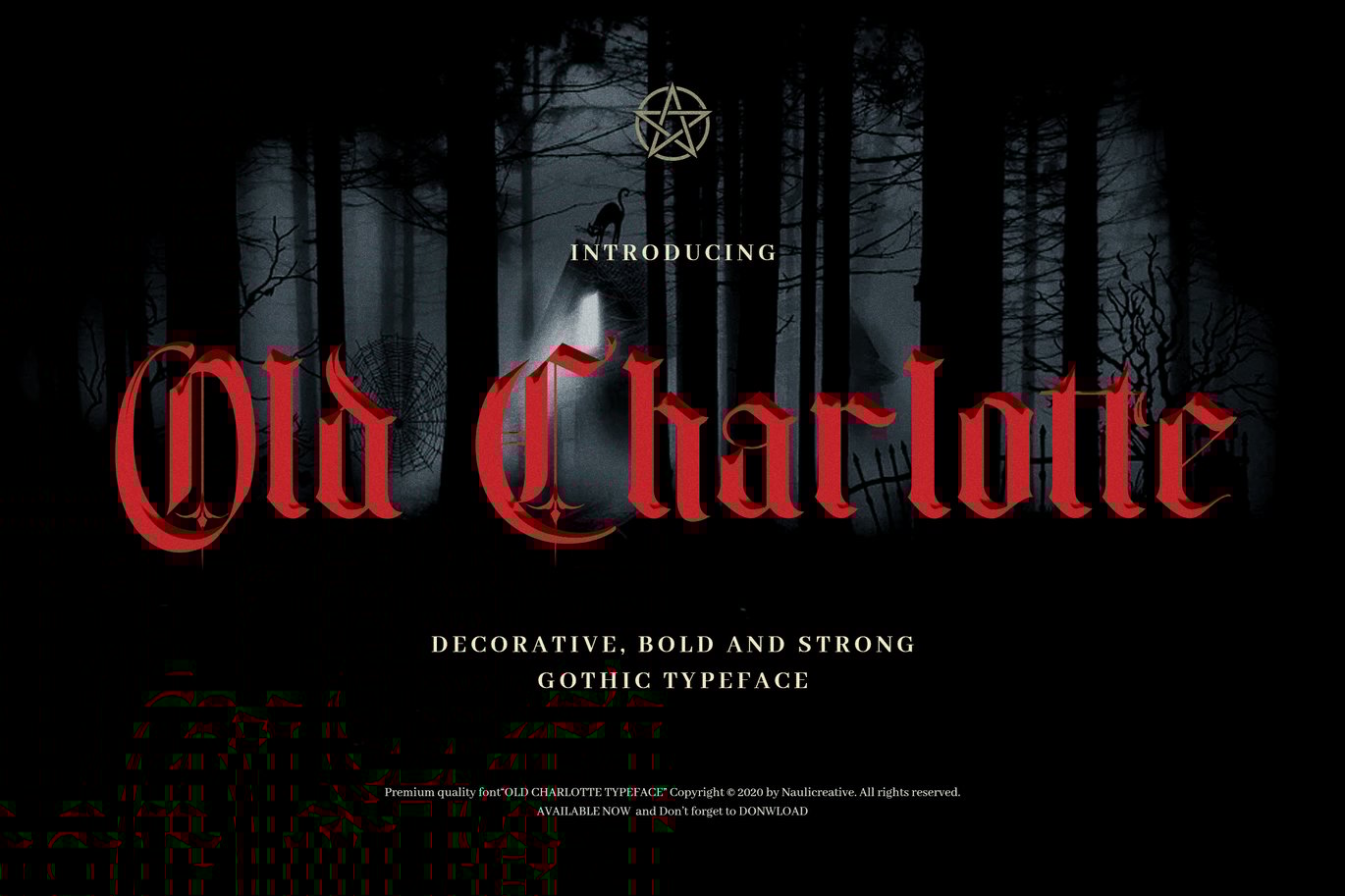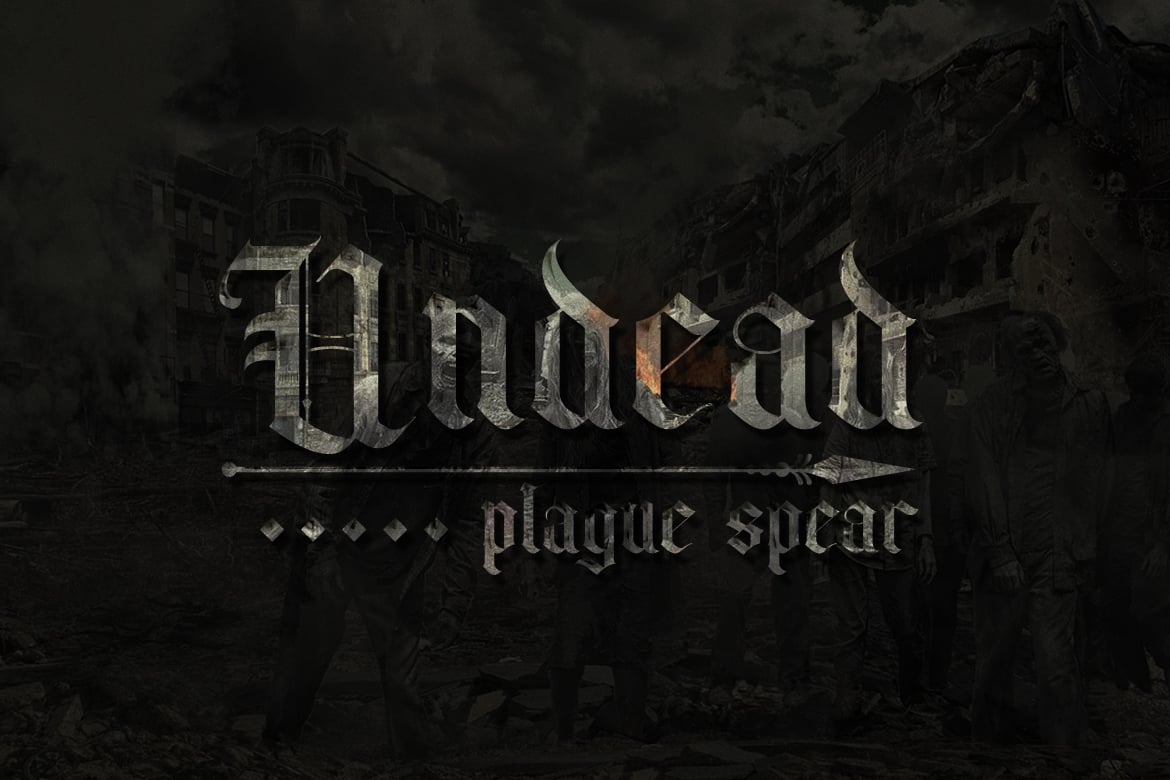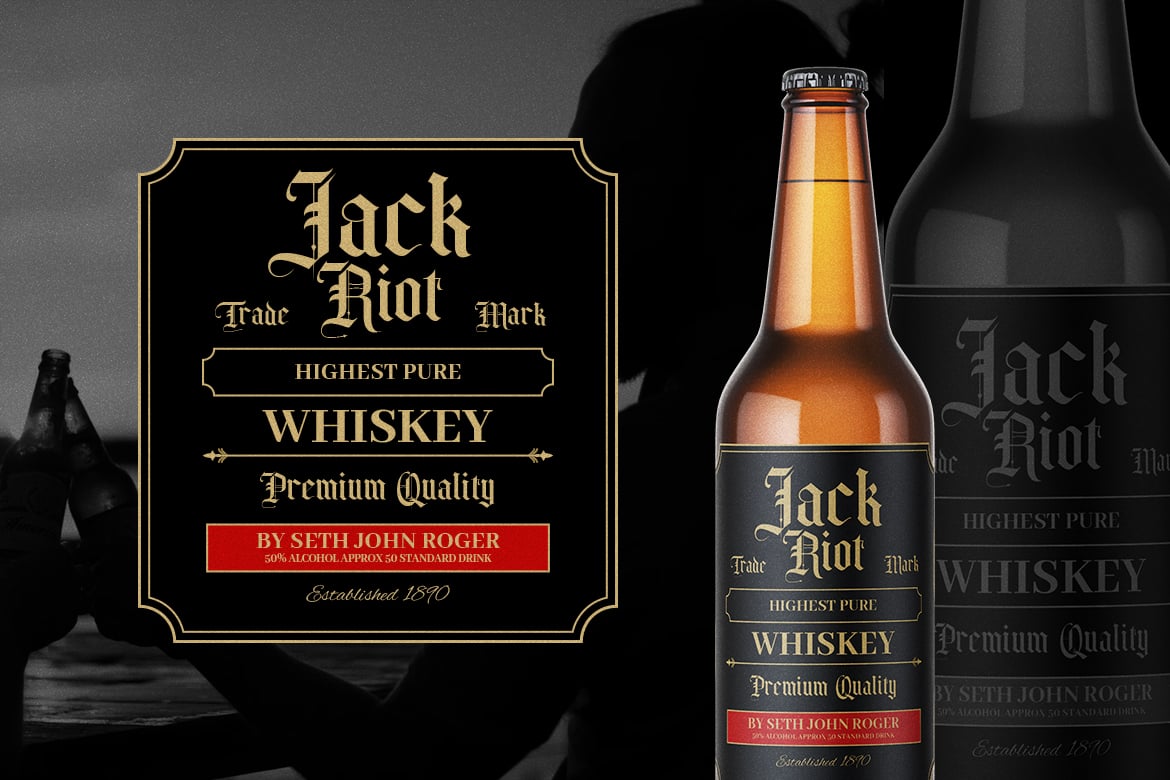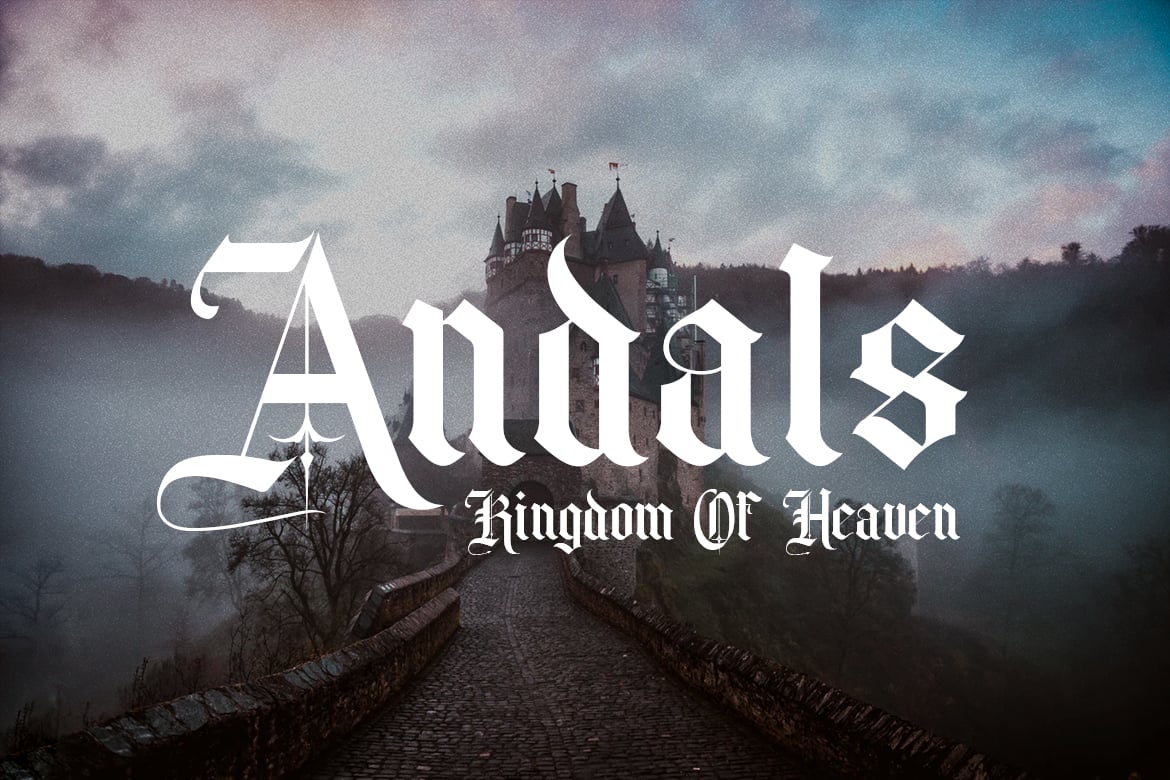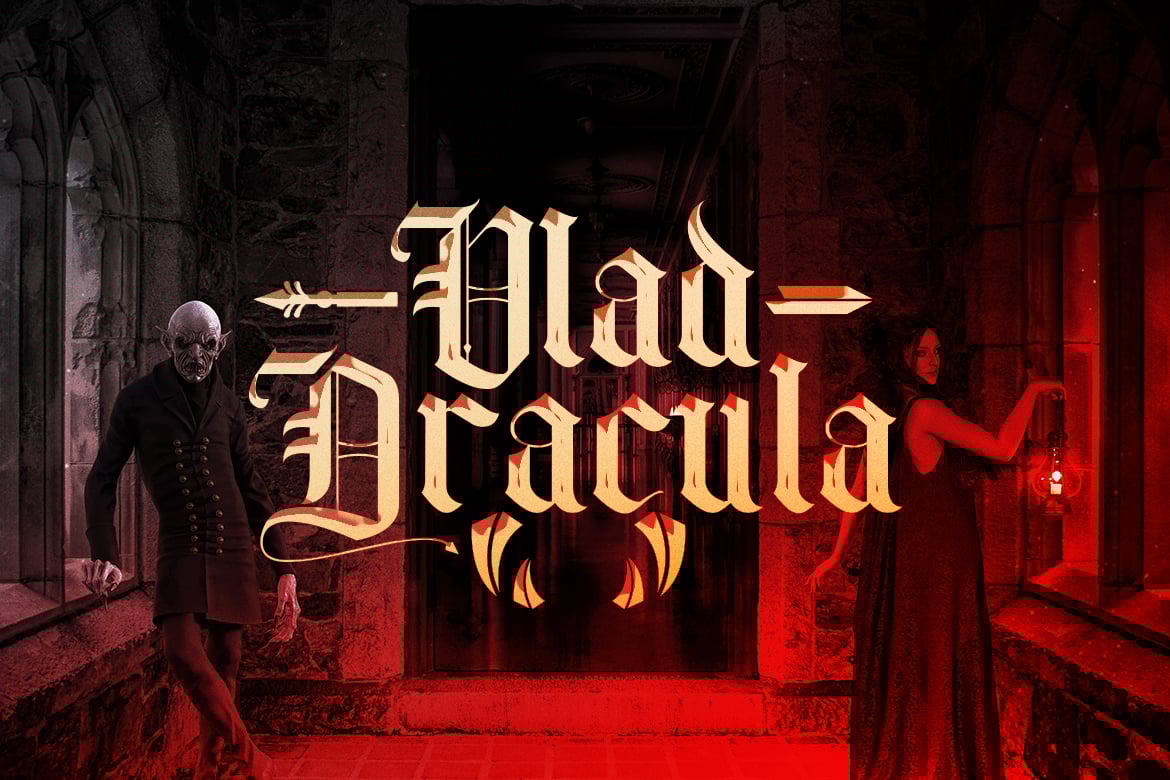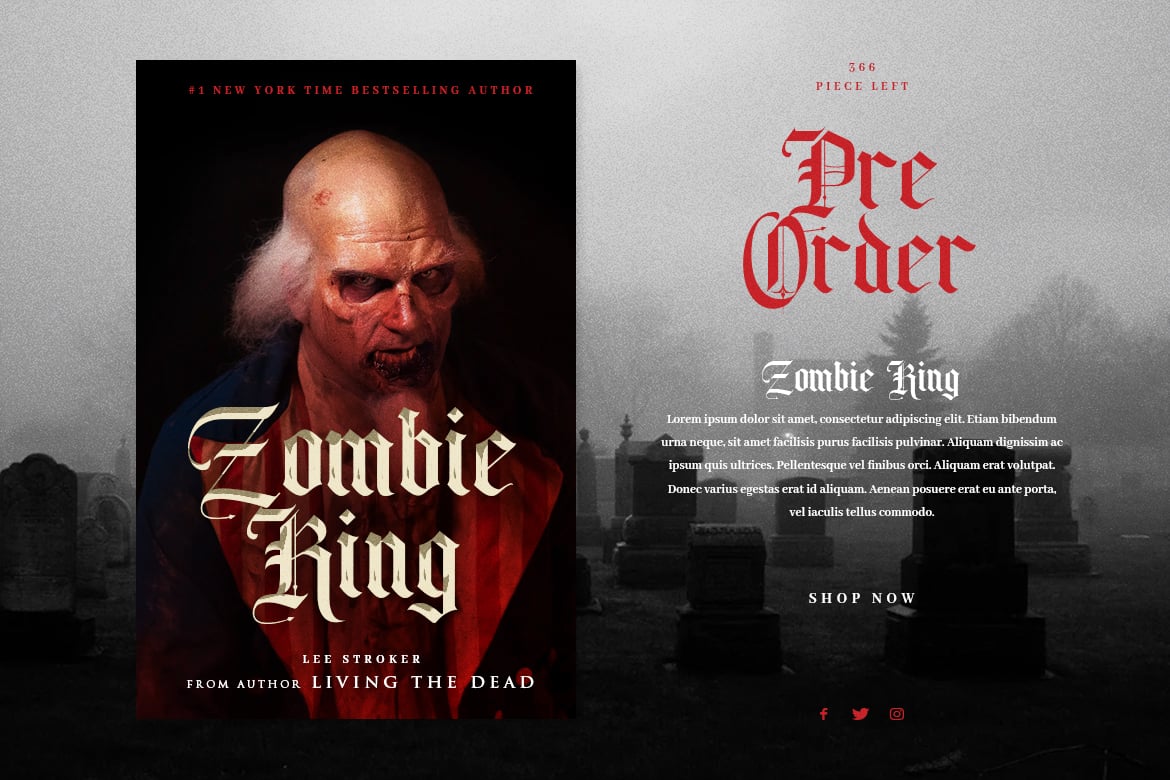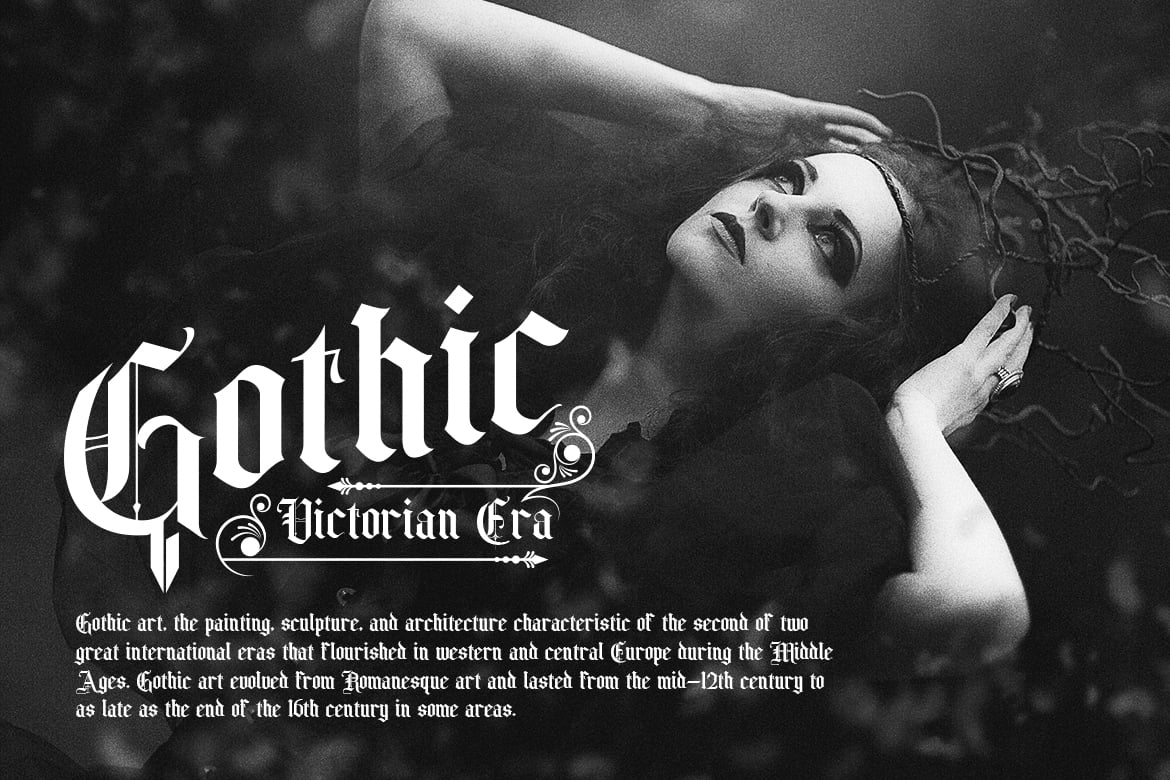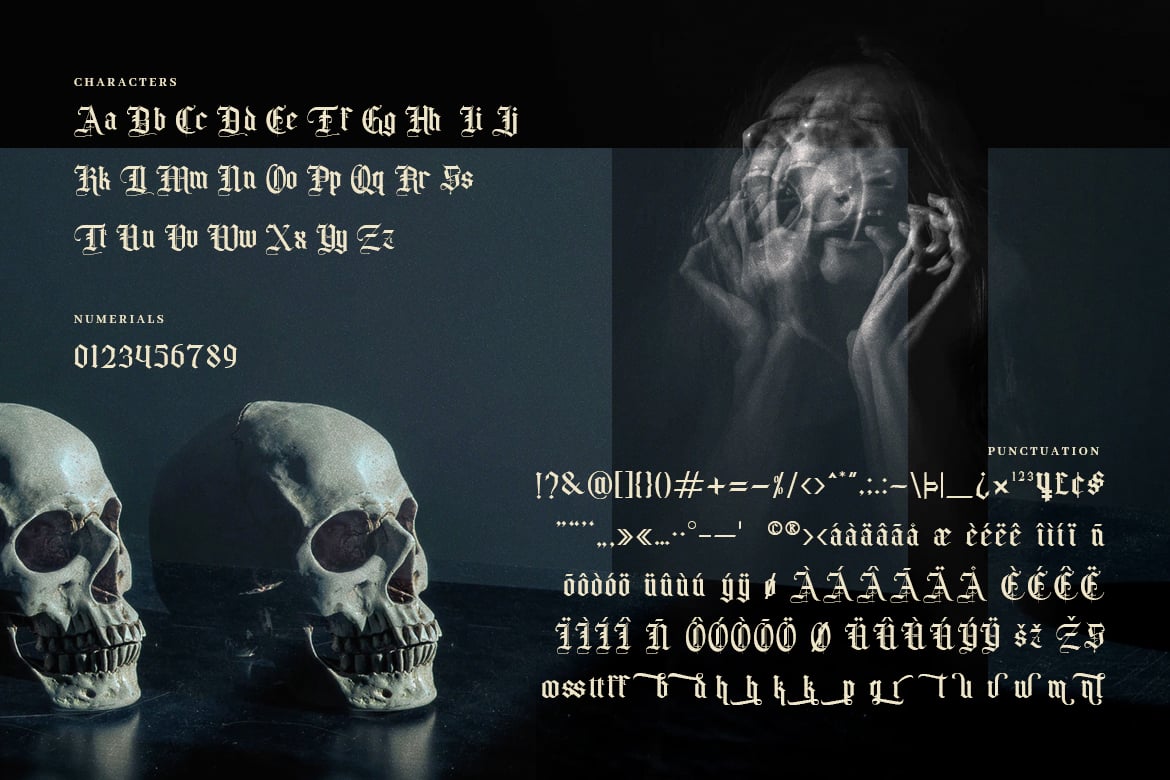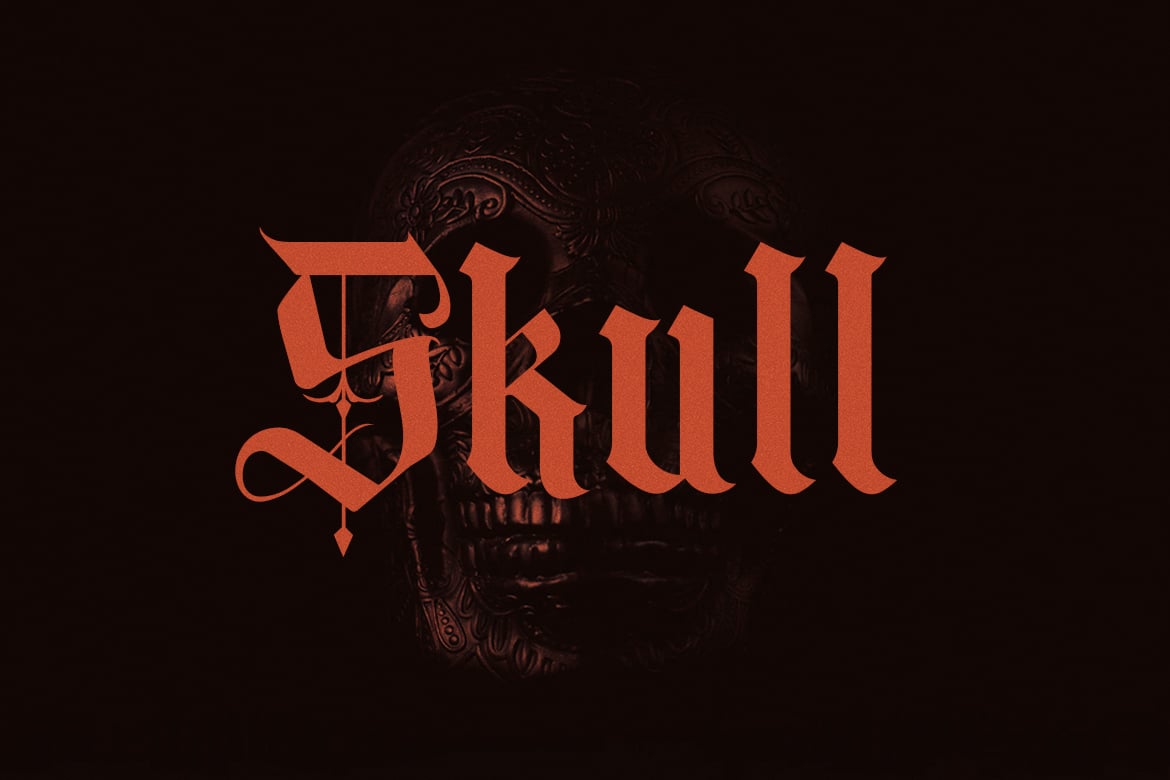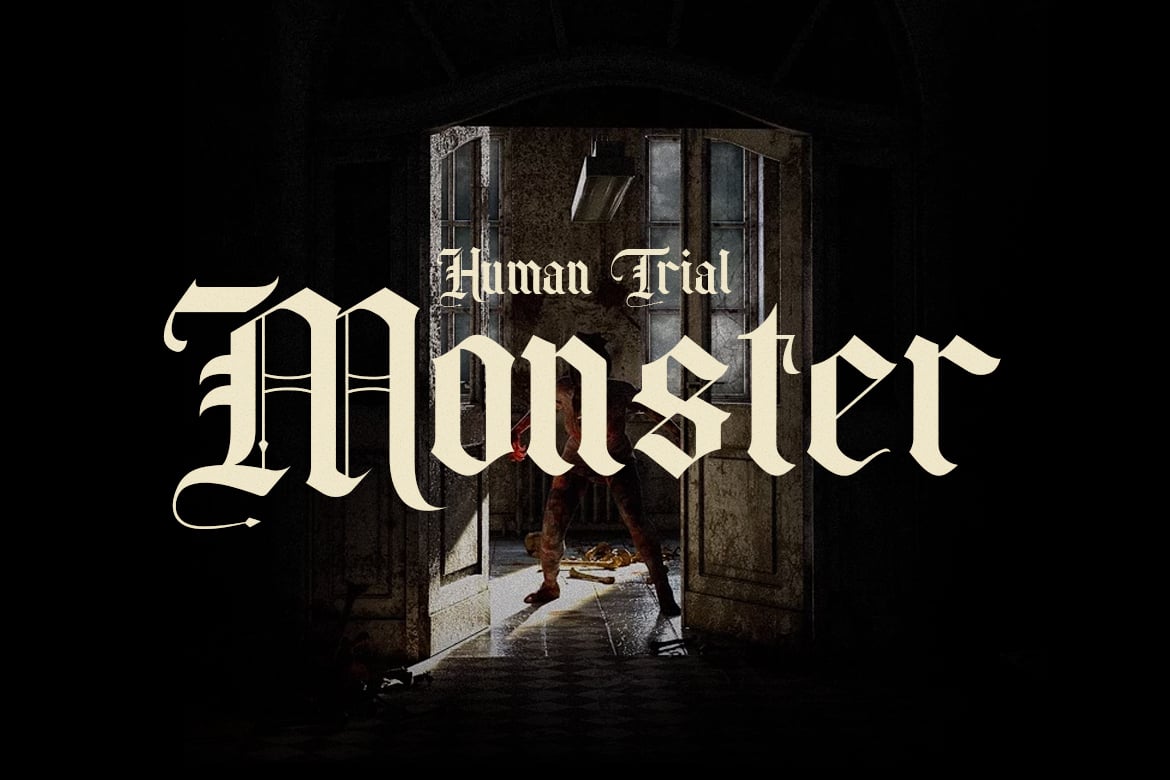
Old Charlotte – Bold Decorative Gothic Font
Introducing Old Charlotte font. Are you looking for a bold handlettering decorative font that has a medieval gothic feeling? We can help! Try to download our Old Charlotte font. Suitable to use for any occasion such as book, logo, print, game, event, music, invitation and others π
- Basic Latin A-Z, a-z,
- Alternate Characters